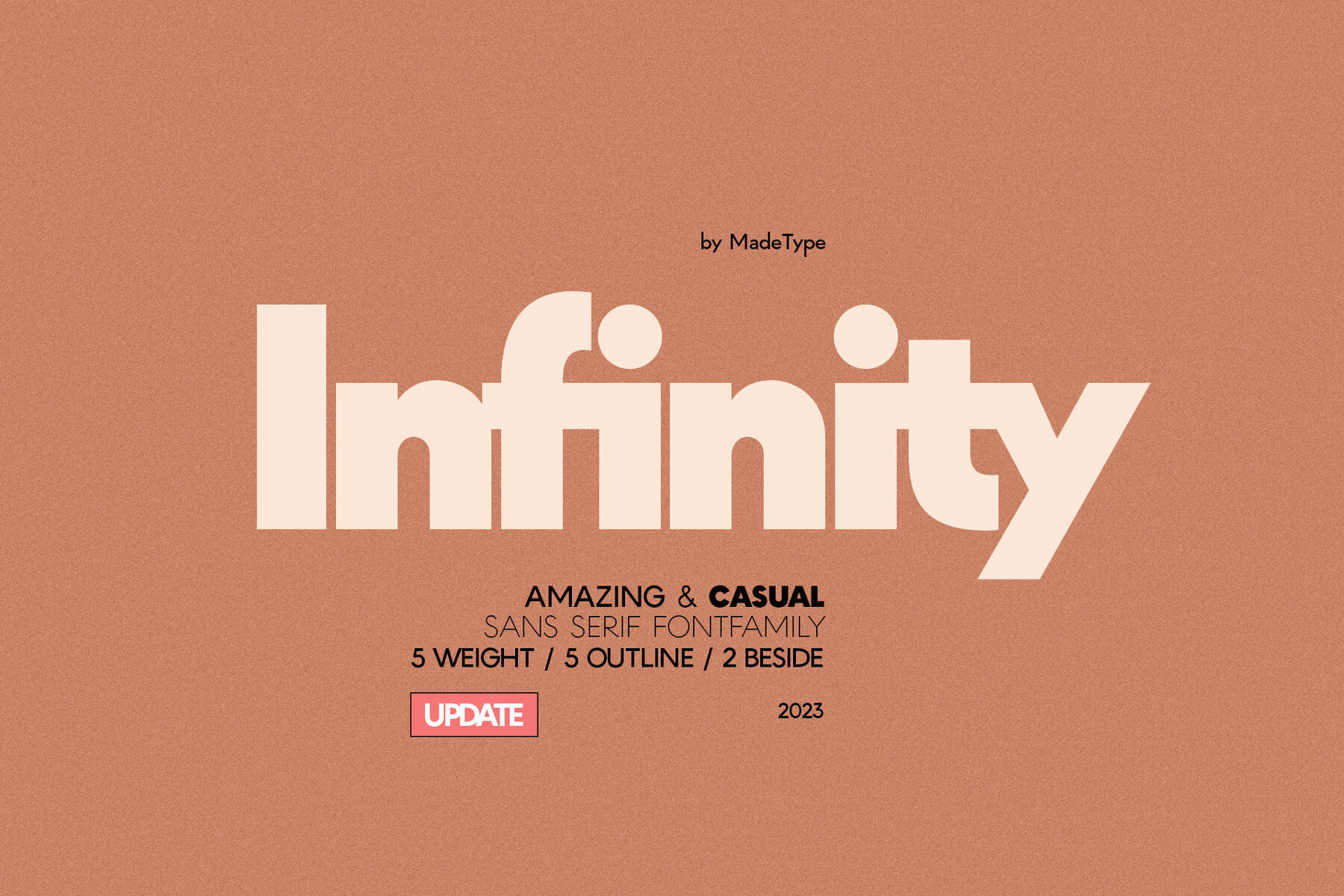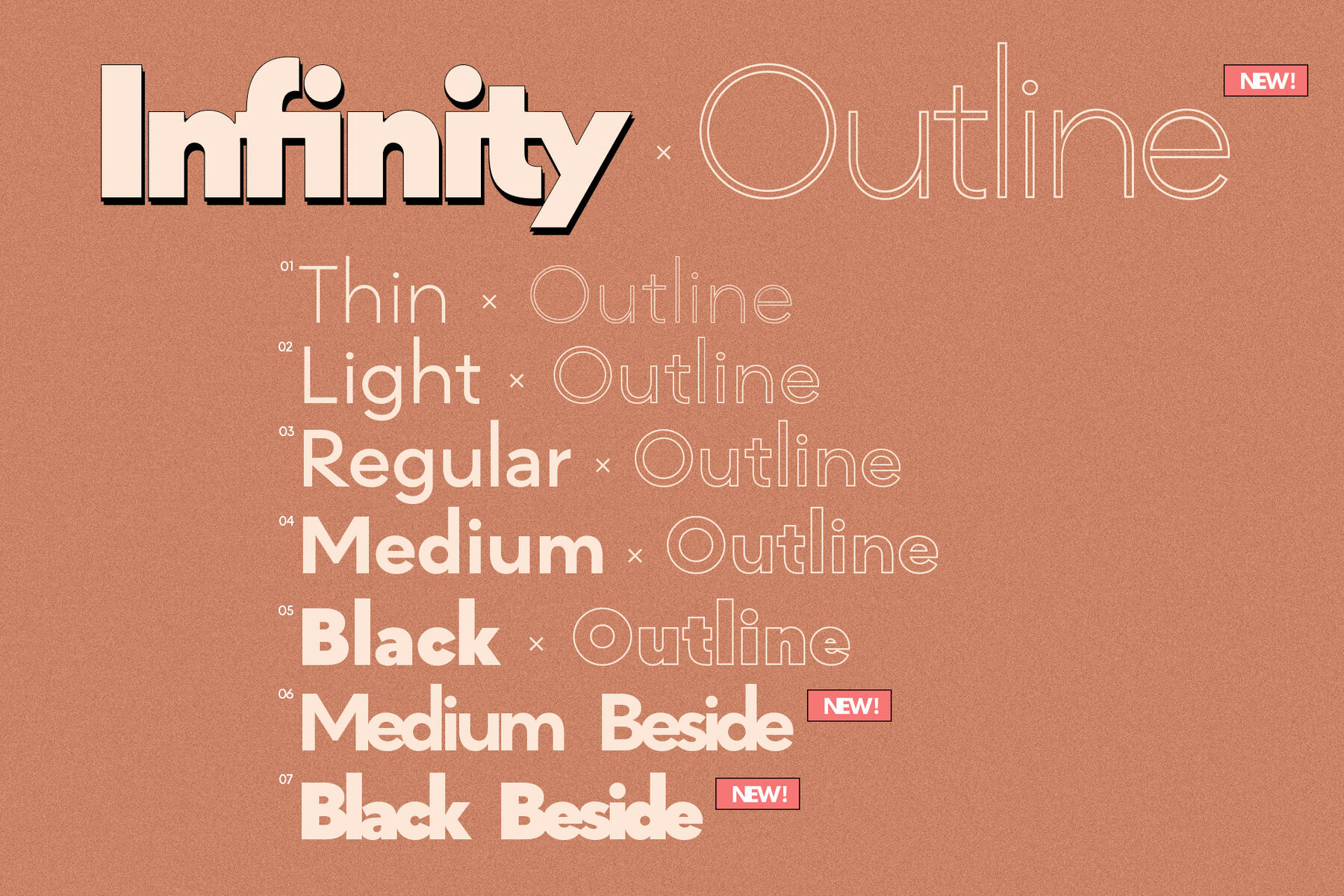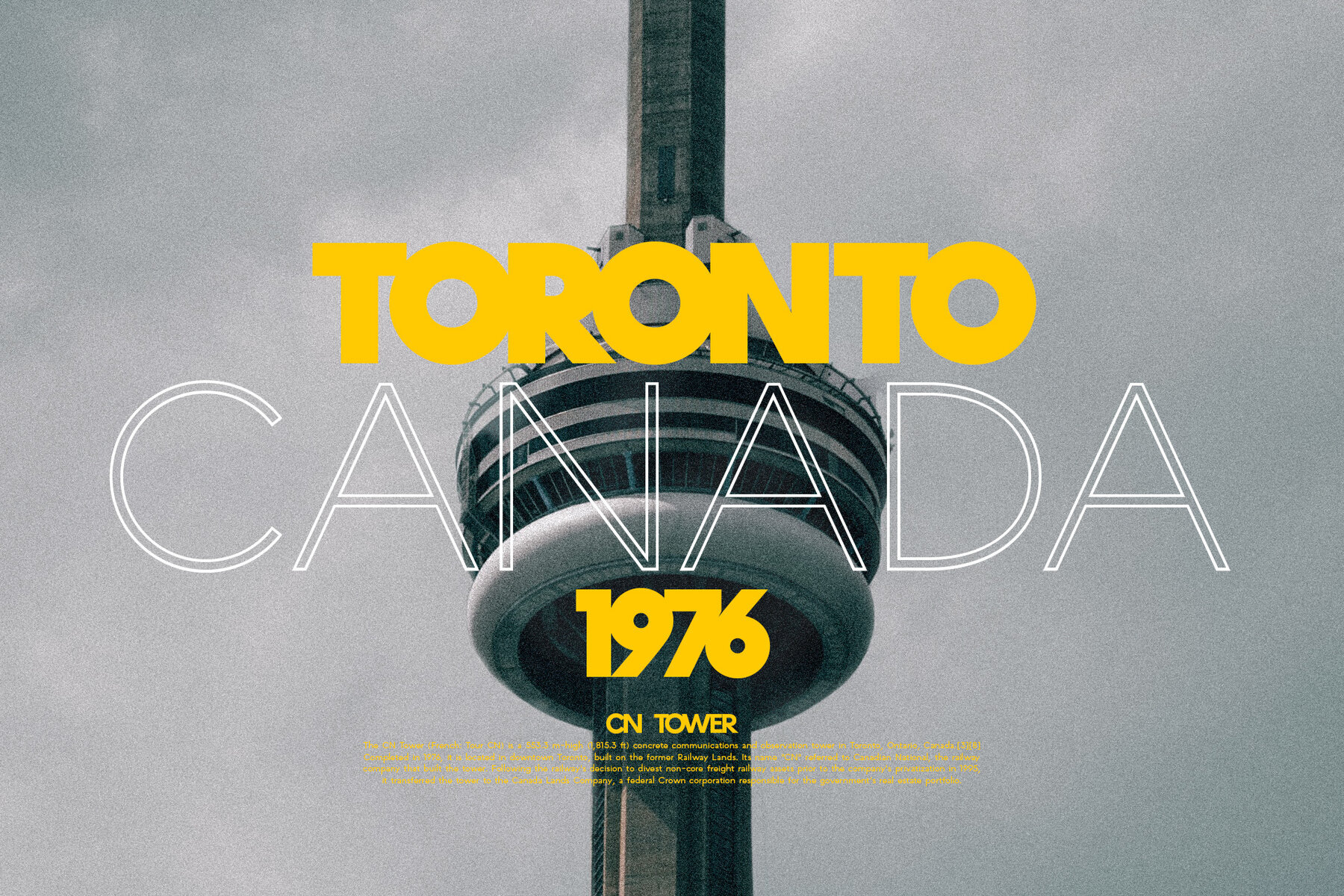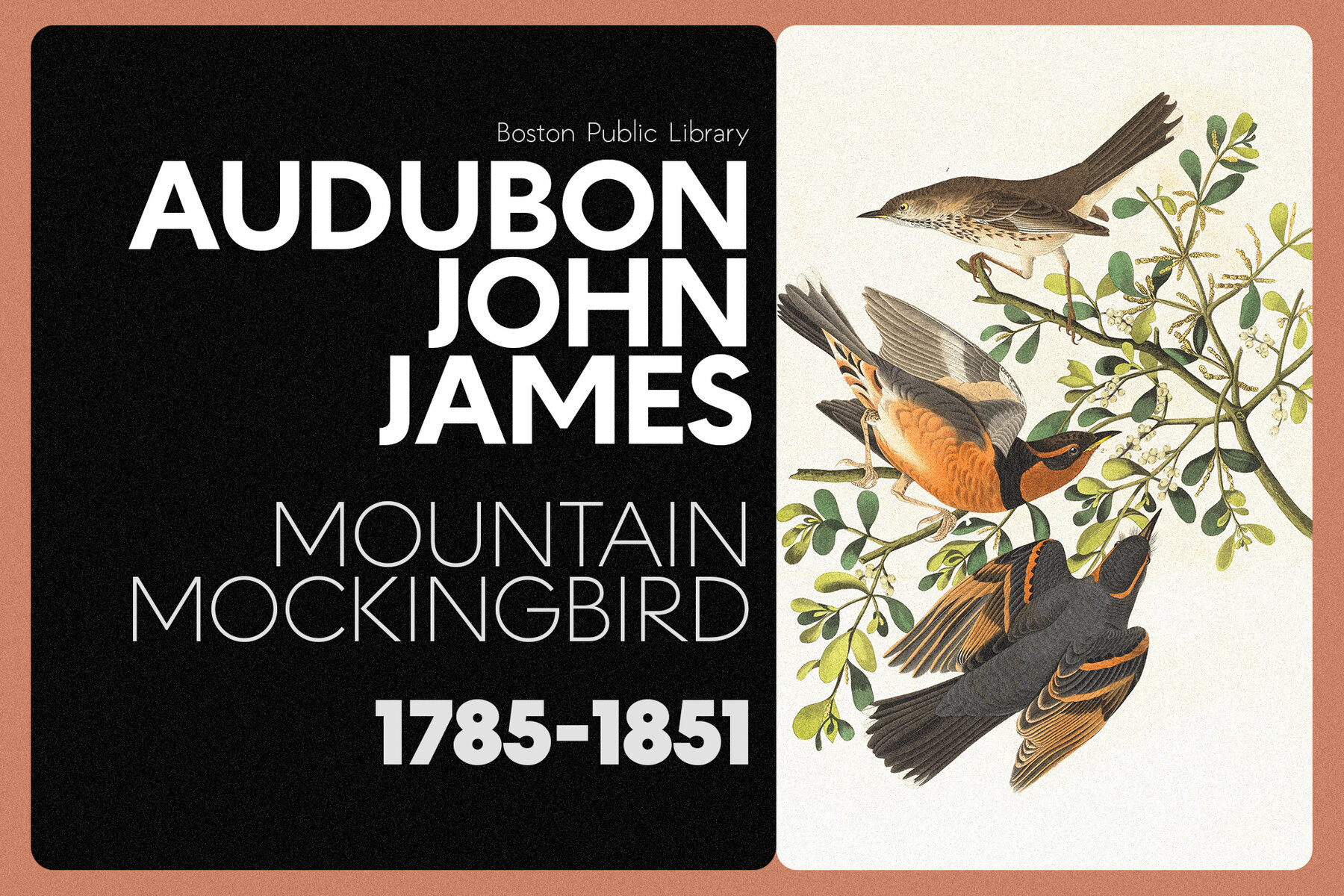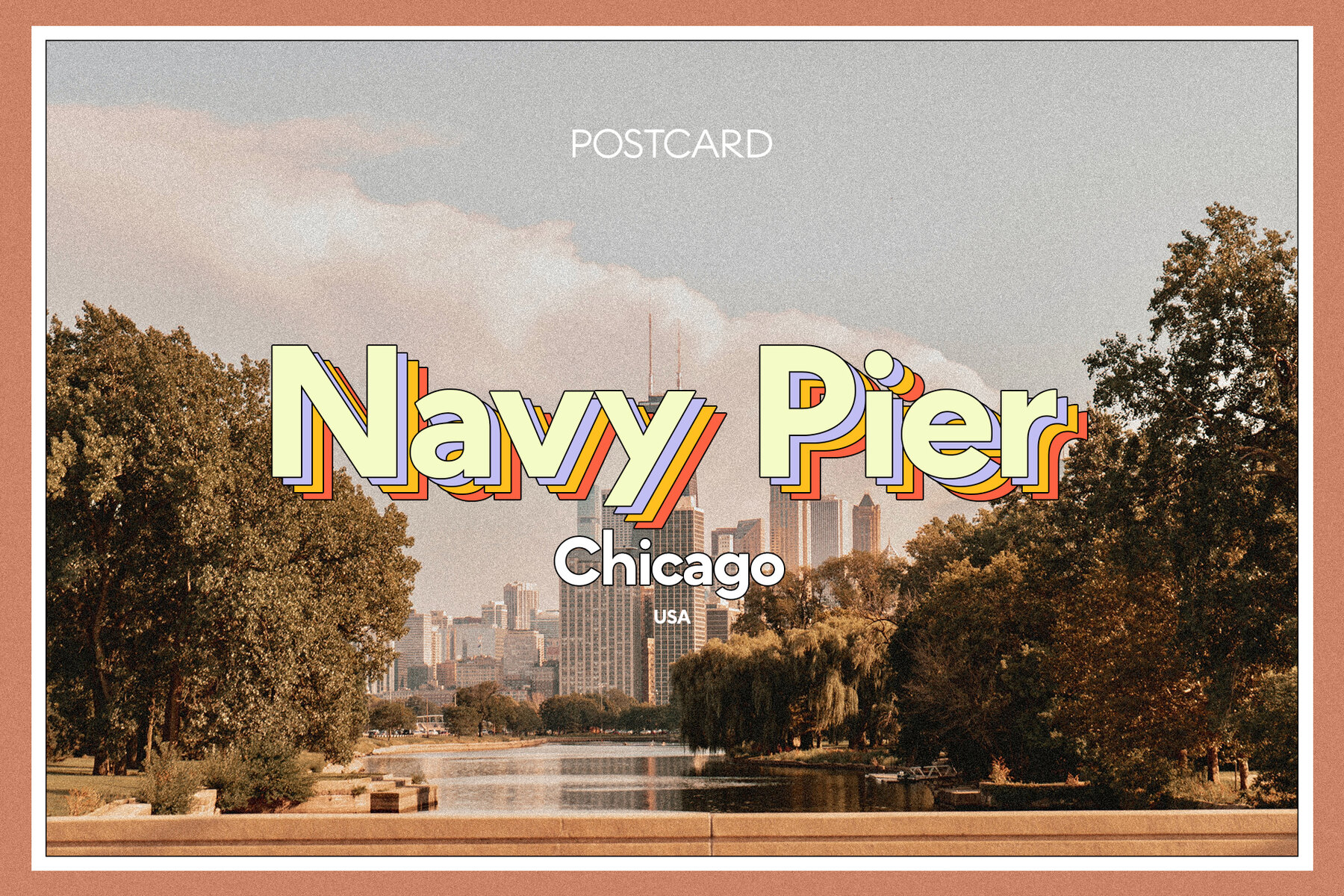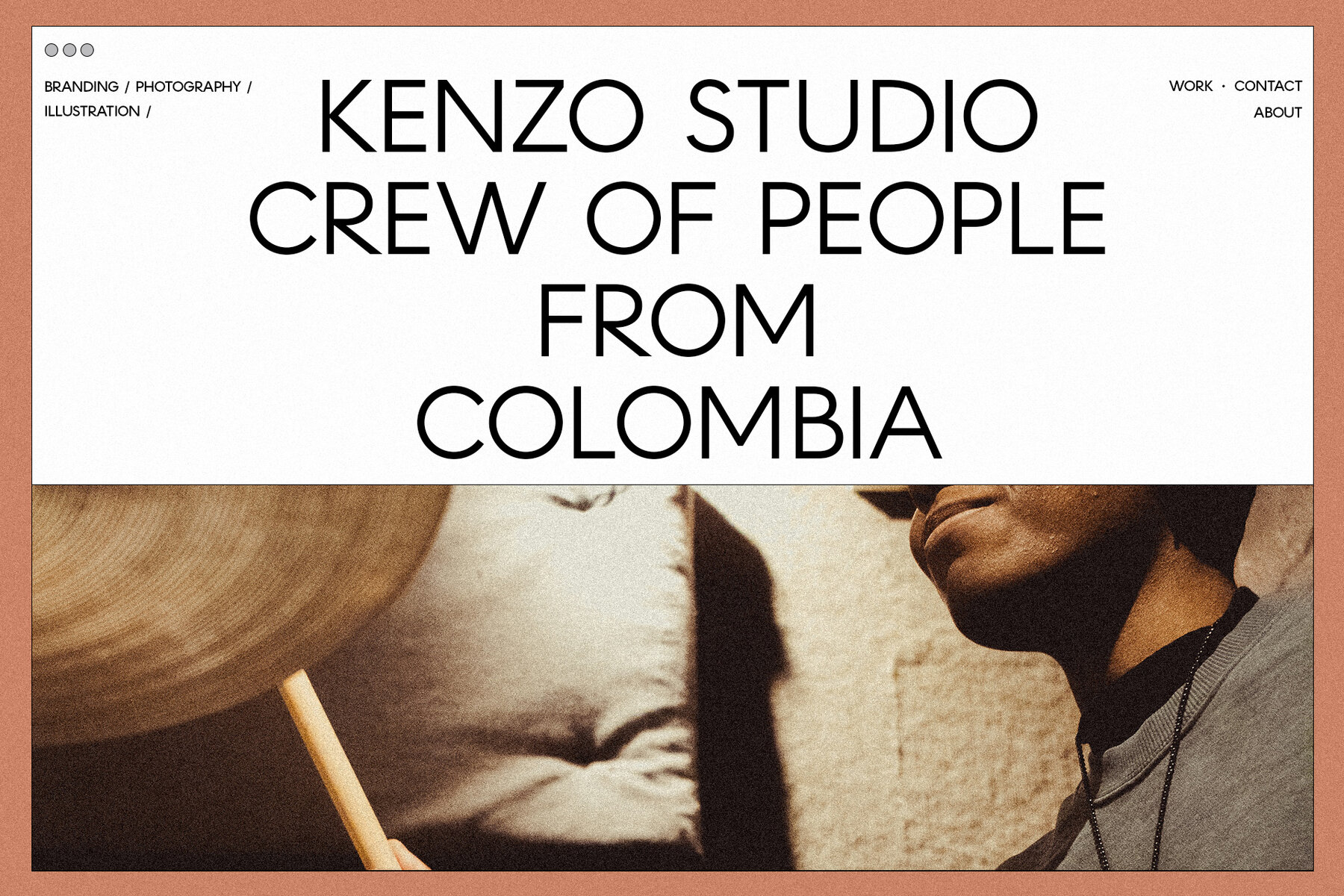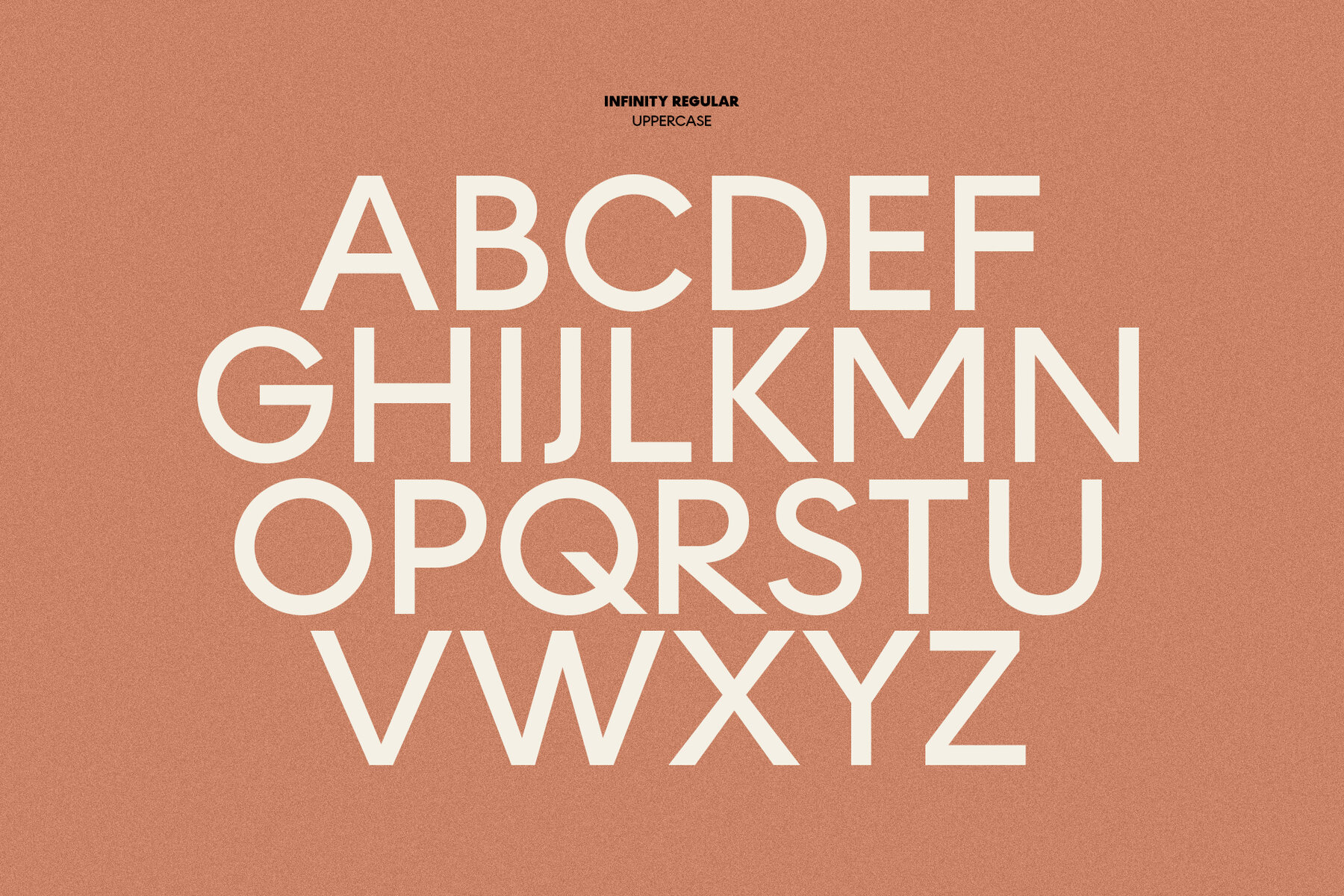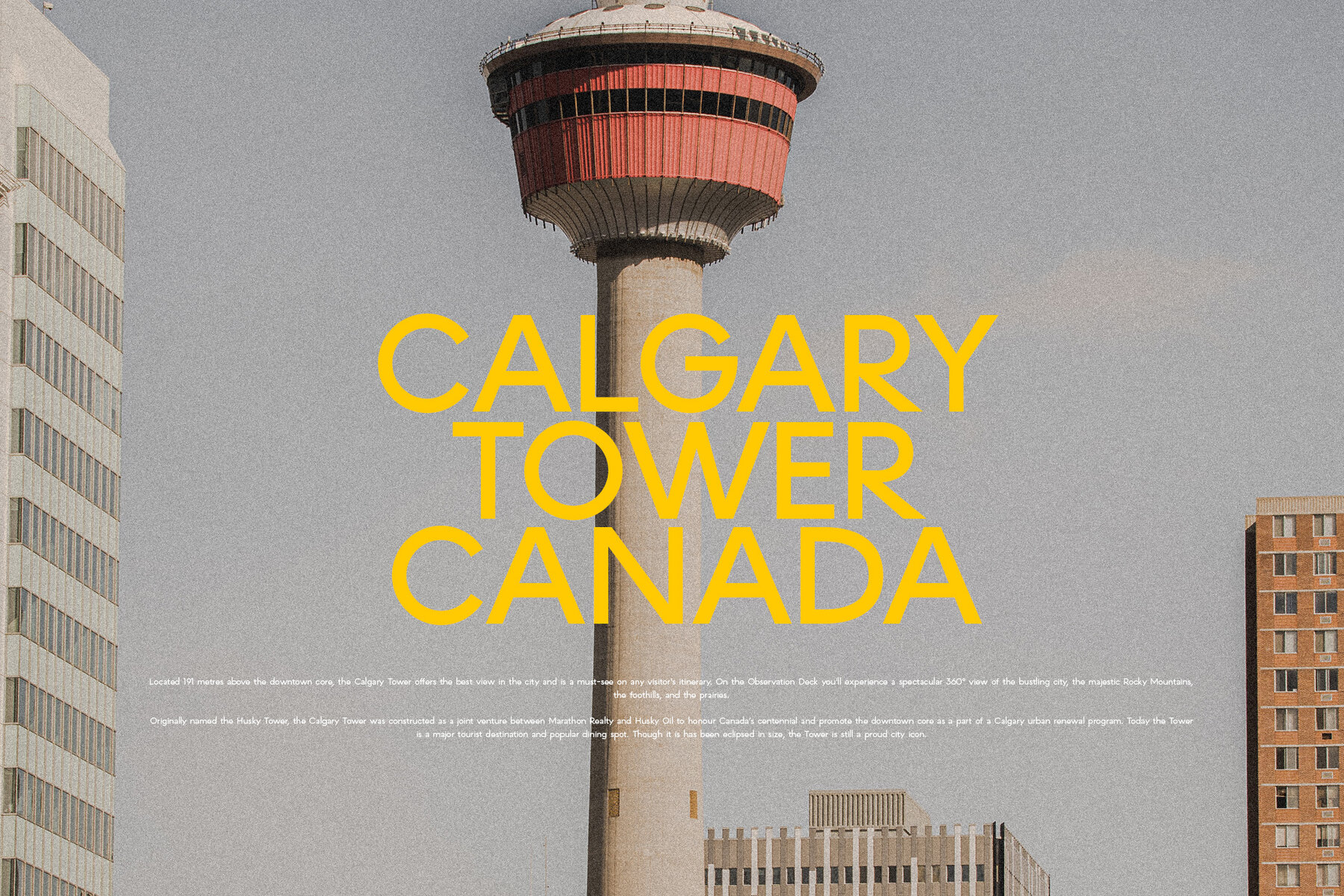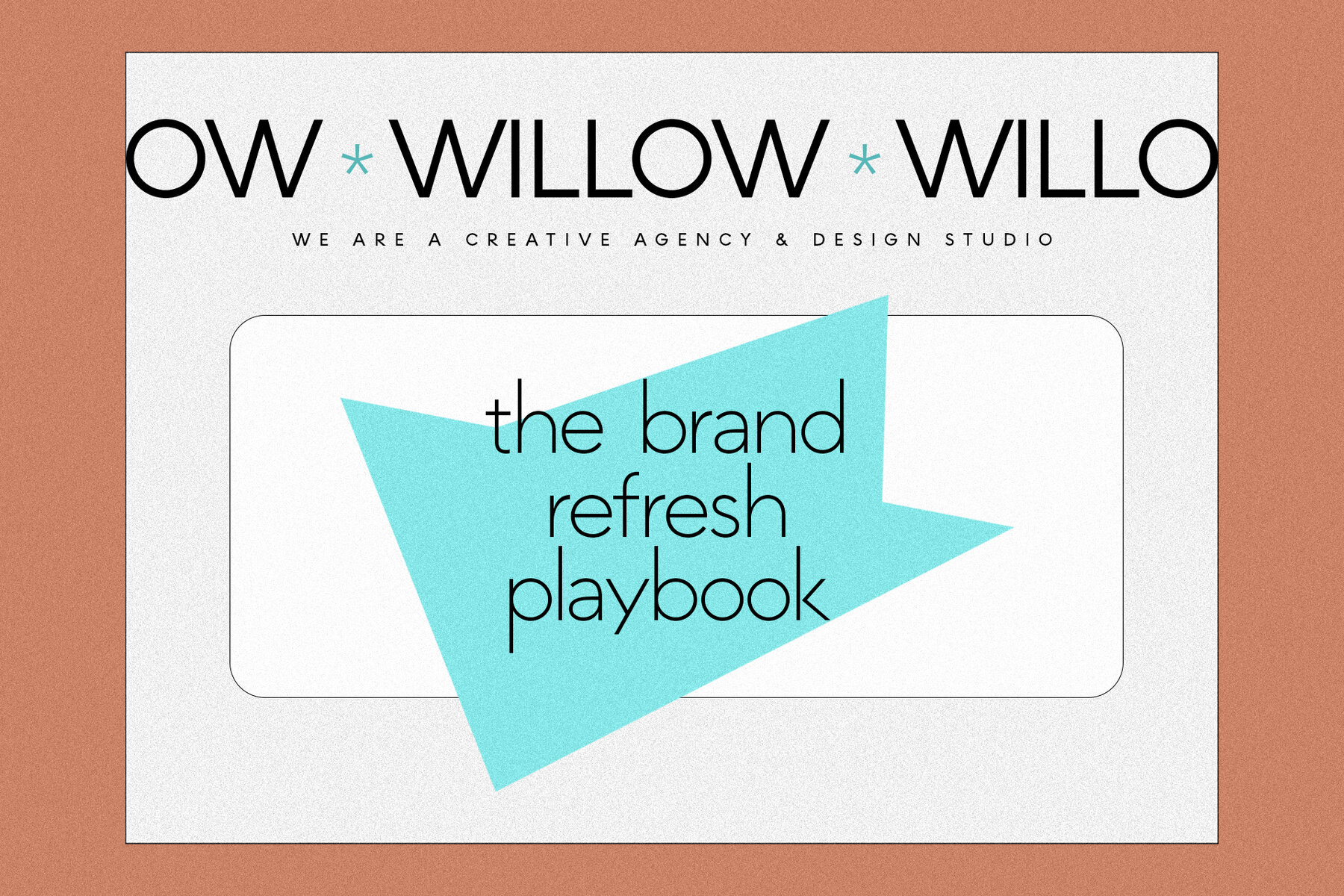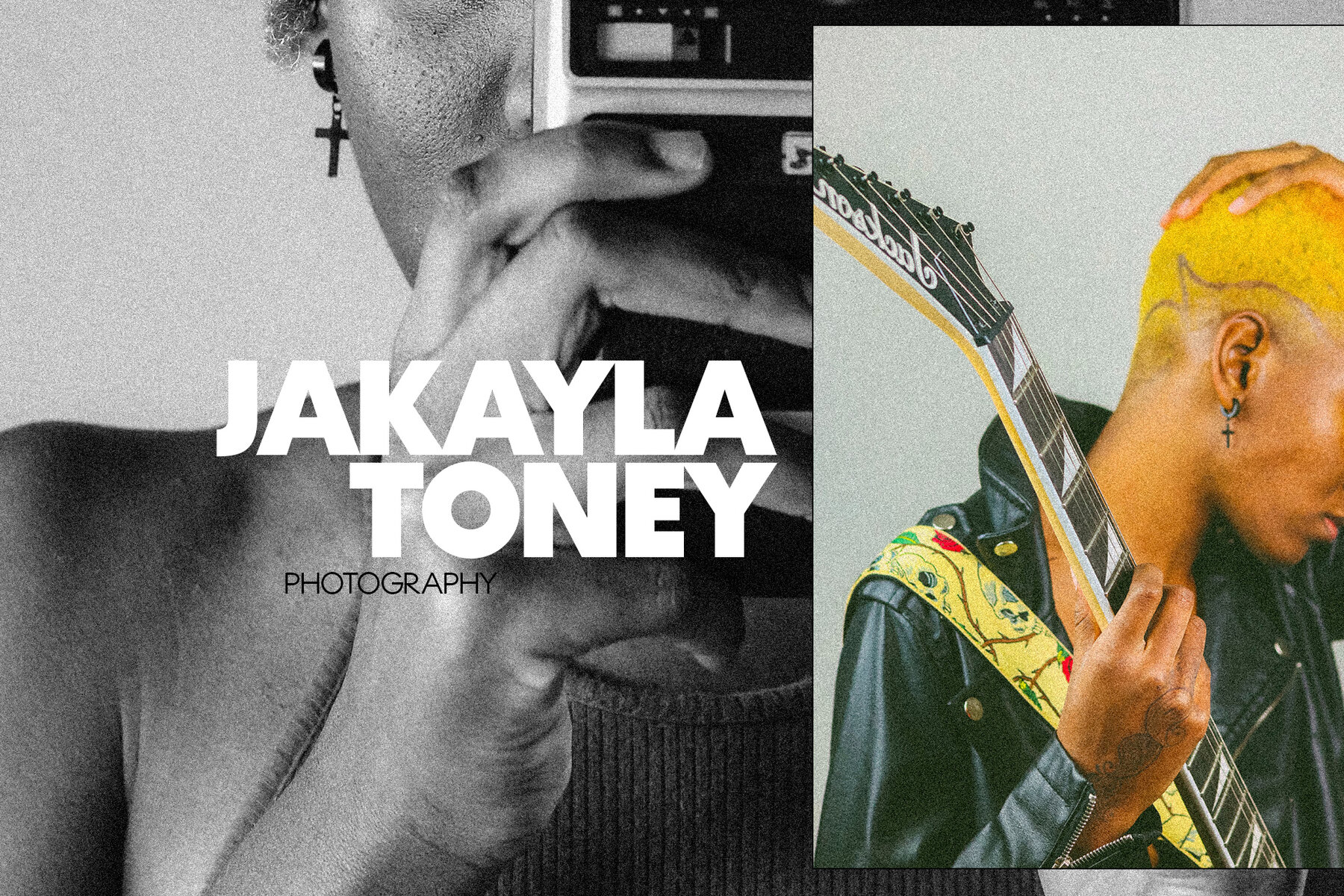
MADE INFINITY Font
MADE INFINITY is a new casual classic sans serif typefamily. What's Included? - Uppercase & lowercase letters, numbers, punctuation - Multilingual support (INCLUDING VIETNAMESE)